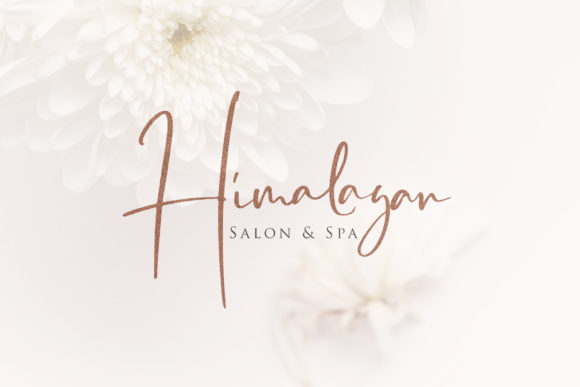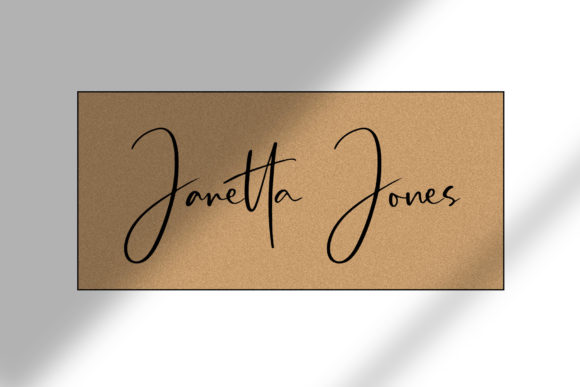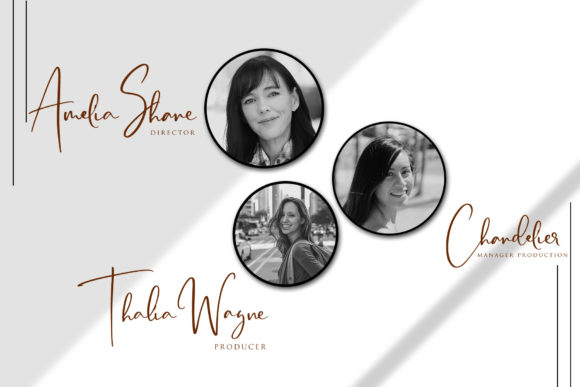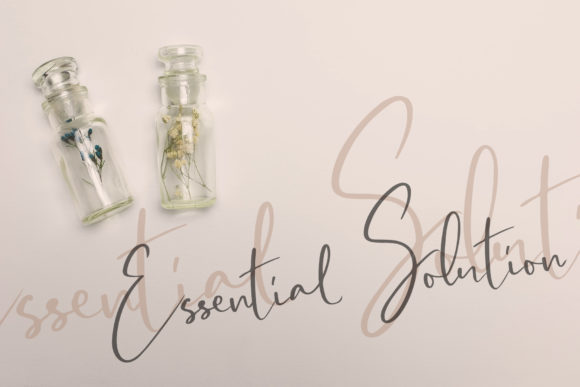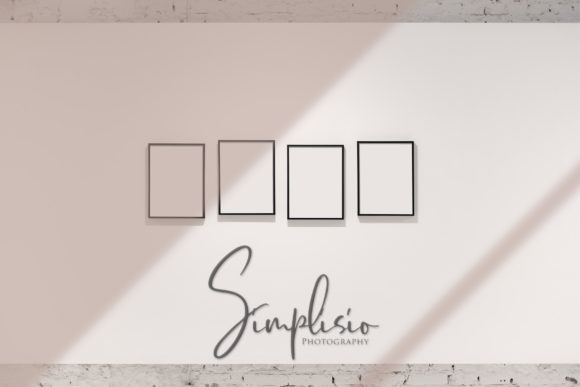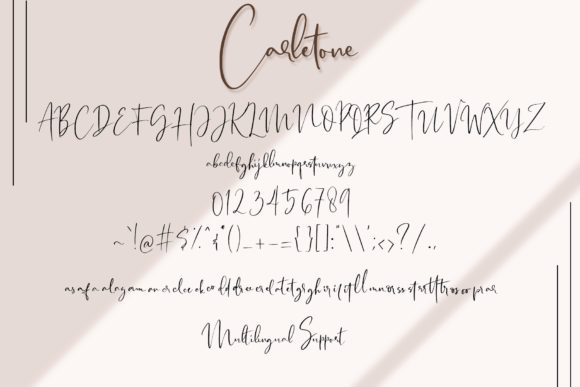
HomeScript FontsCarletone Font Script Fonts Carletone Font FacebookXPinterestWhatsApp Carletone Font Poster 2 Carletone Font Poster 3 Carletone Font Poster 4 Carletone Font Poster 5 Carletone Font Poster 6 Carletone Font Poster 7 About Carletone Font Carletone is a stunning and light script with a contemporary feel. It will turn any design idea into a standout! DOWNLOAD ON CREATIVE FABRICAThis font is sold and delivered by Creative Fabrica. Font Canyon may earn a commission if you buy through this link. People also explored Checkmate Font Lovely Giraffe Font Ayu Monogram Font Defarina Font Guitar from Tree Font Friendly Swandana Font Happy Valentine Font Astrolove Font 419 0 TagsCarletone Font Previous articleHoam FontNext articleGothix Font LEAVE A REPLY Cancel reply Comment: Please enter your comment! Name:* Please enter your name here Email:* You have entered an incorrect email address! Please enter your email address here Website: Save my name, email, and website in this browser for the next time I comment. Personal Use Free Veronica Personal Use Free Read more about this font Hatia Script Personal Use Free Read more about this font Knucklehead Personal Use Free Read more about this font Elliane Personal Use Free Read more about this font BLOG Top 7 Google Fonts Alternatives for Faster and Privacy-Friendly Web Design (2025) Top 7 Google Fonts Alternatives for Faster and Privacy-Friendly Web Design (2025) When it comes to web typography, Google Fonts has long been the go-to... Fonts That Capture the Spirit of New York City How to Install and Use Fonts on Windows, macOS, and Web Projects Modern Sans-Serif Fonts That Brands Love in 2025